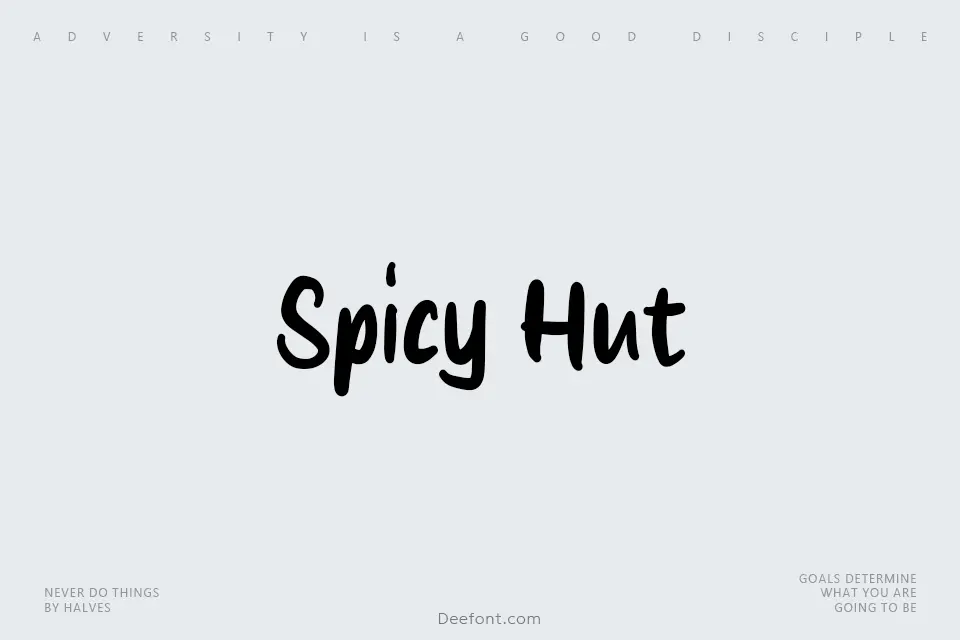
Spicy Hut Font
Spicy Hut is an expressive semi-bold handwritten font designed for creative professionals seeking playful yet sophisticated typography. With its distinctive flowing curves and energetic letterforms, this display script excels in eye-catching applications from restaurant menus and social media graphics to product packaging and custom logos. The font’s balanced character combines casual charm with refined elegance, making it ideal for invitations, greeting cards, branding projects, and any design requiring a touch of personality and warmth.